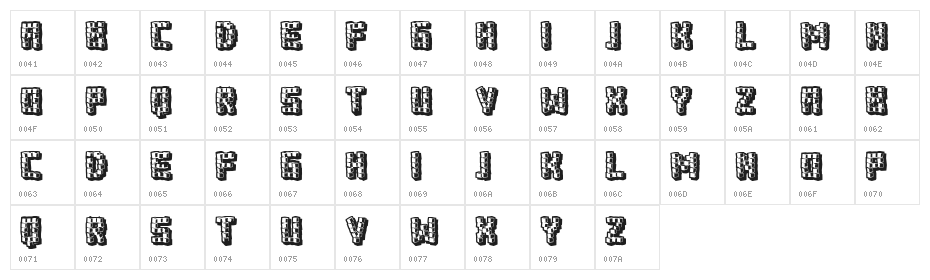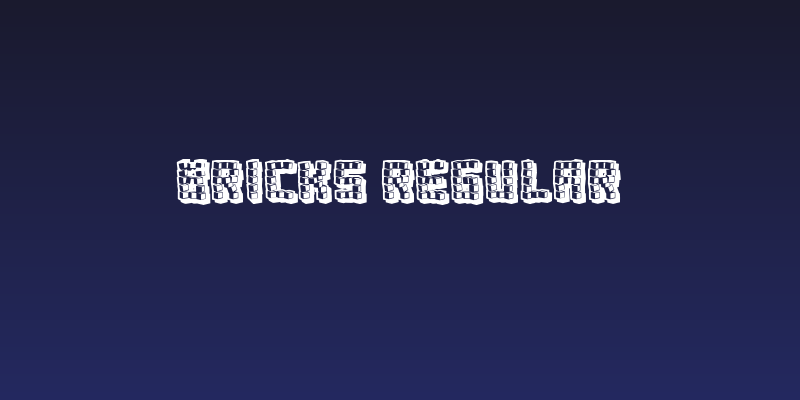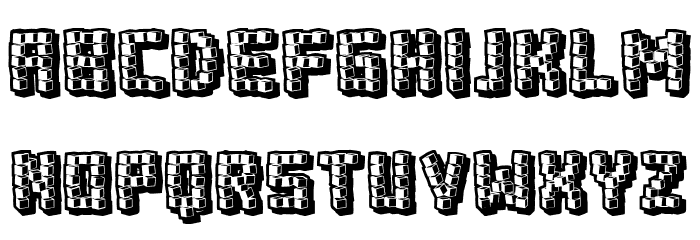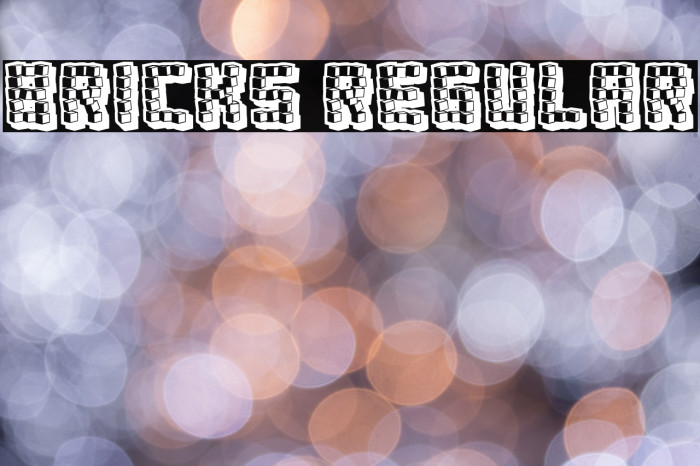
Bricks Regular Font
Bricks Regular Description
This font features a bold, three-dimensional brick-like design that gives each character a distinct and playful appearance. The letters are constructed with a blocky, geometric style, creating a sense of depth and texture. The design is consistent across both uppercase and lowercase letters, as well as numbers and special characters. The font's unique structure makes it stand out, ideal for projects that require a strong visual impact. The characters are evenly spaced, maintaining readability despite their intricate design.
| Proposed Projects | Ideal for children's books, playful branding, posters, and creative design projects that require a strong visual impact. |